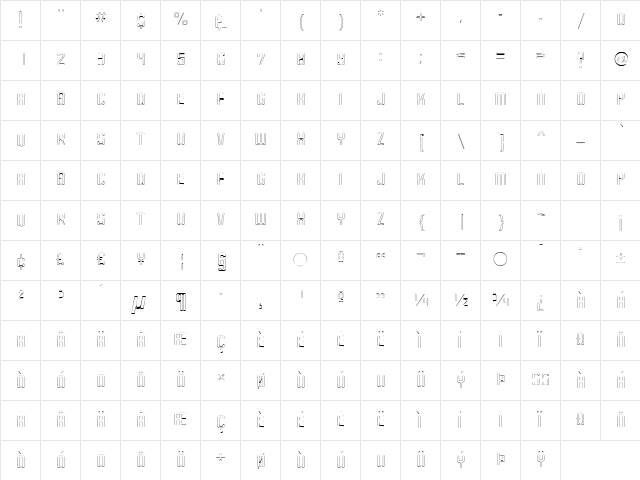
MilwaukeeNeonNeon Regular Font Preview
MilwaukeeNeonNeon Regular
Design Context for MilwaukeeNeonNeon Typeface
MilwaukeeNeonNeon channels digital-age aesthetics through its sharp, structured letterforms — ideal for brands that want to signal innovation.
Pro Tip: Try MilwaukeeNeonNeon with generous letter-spacing in UI labels and navigation — the geometric forms benefit from room to breathe.